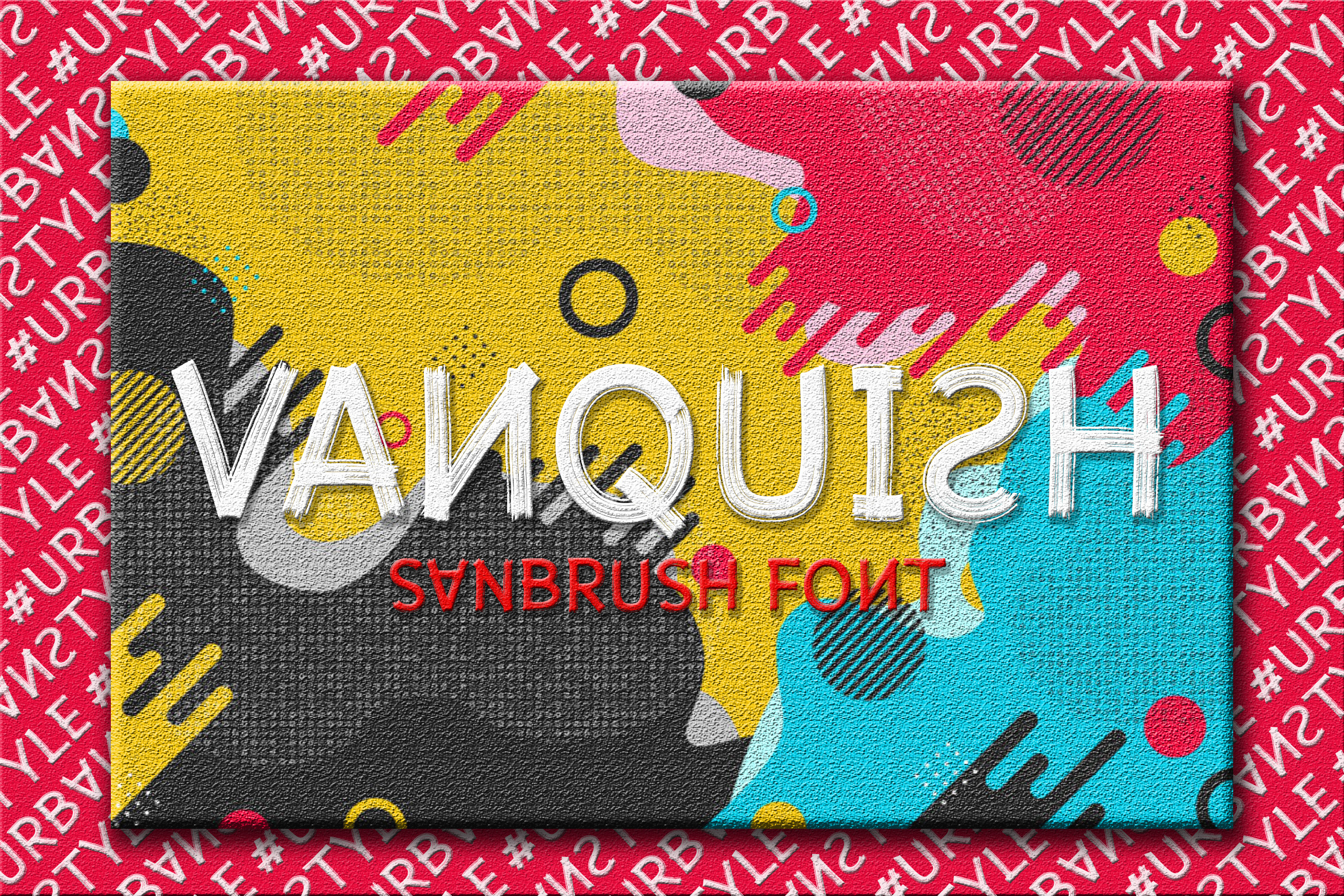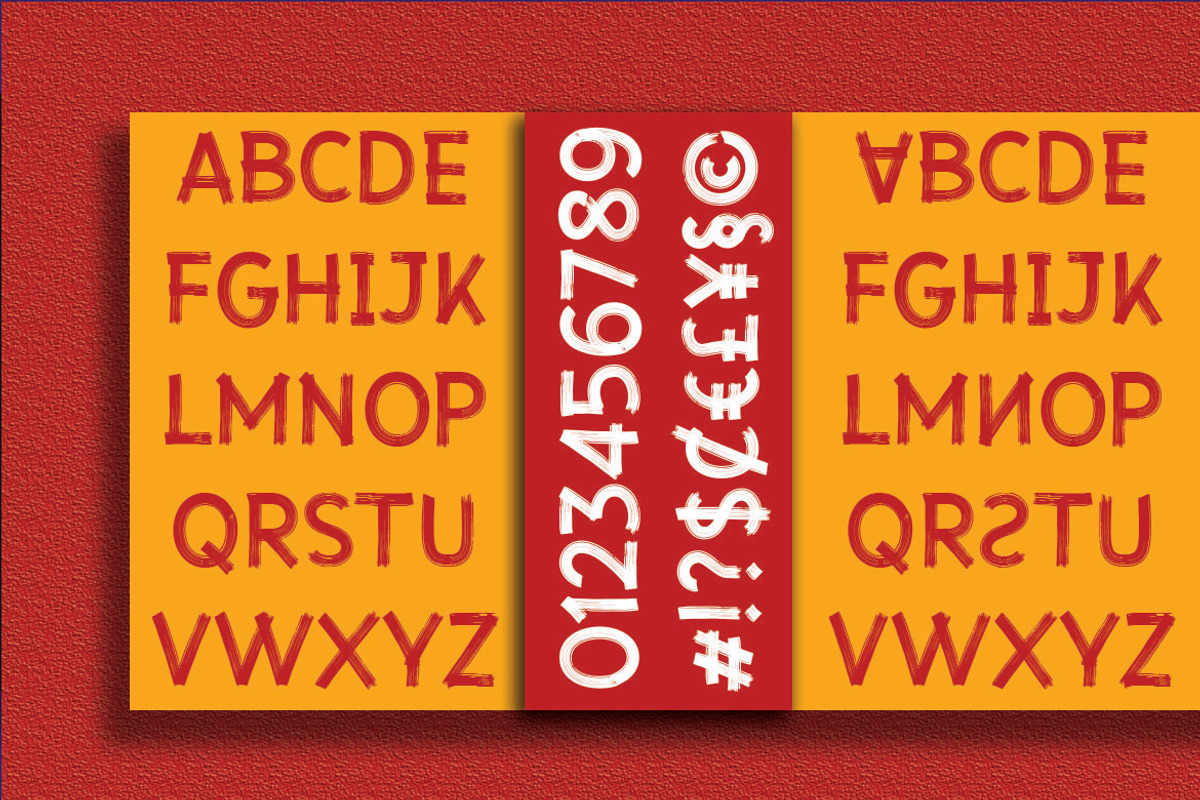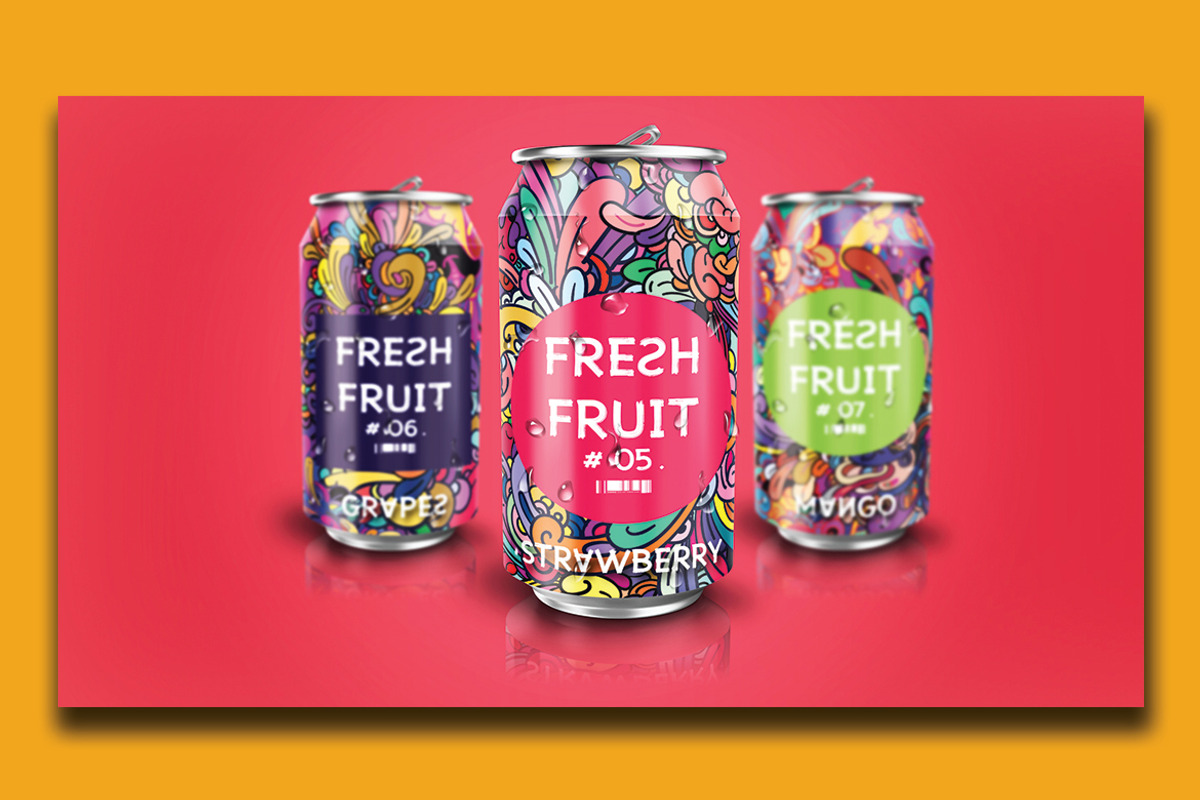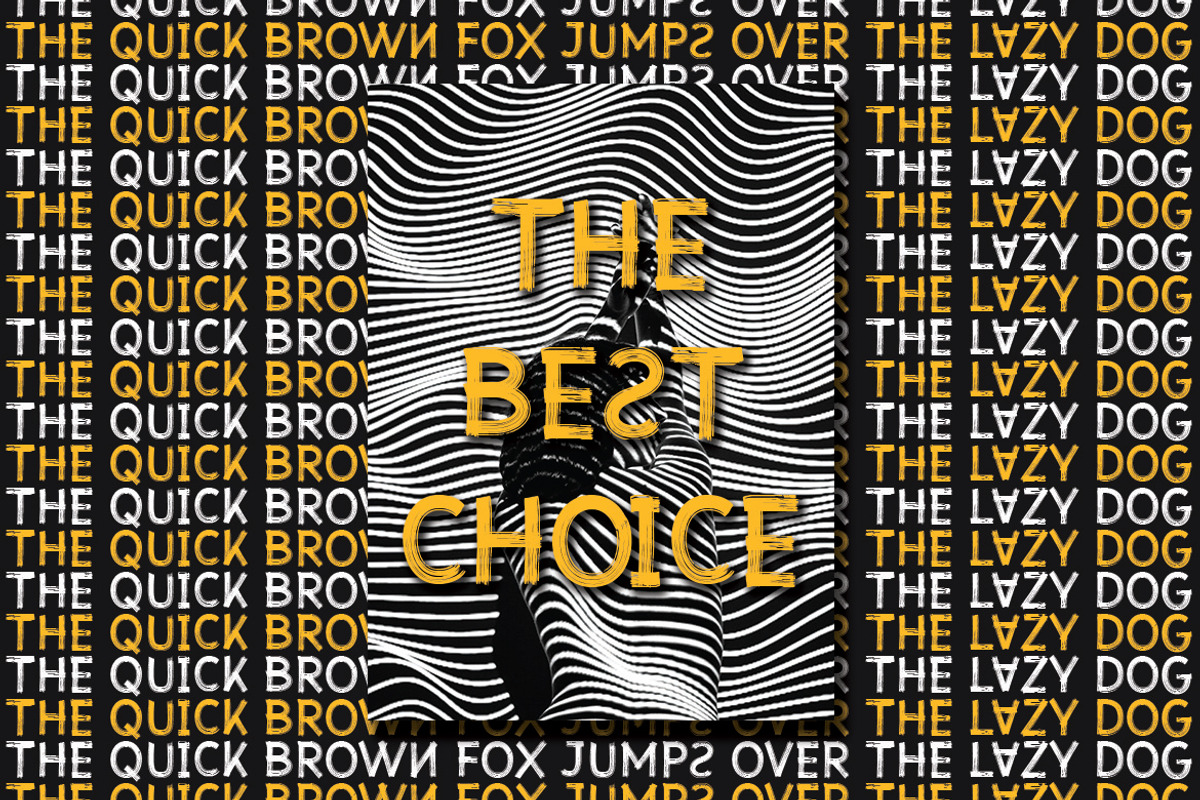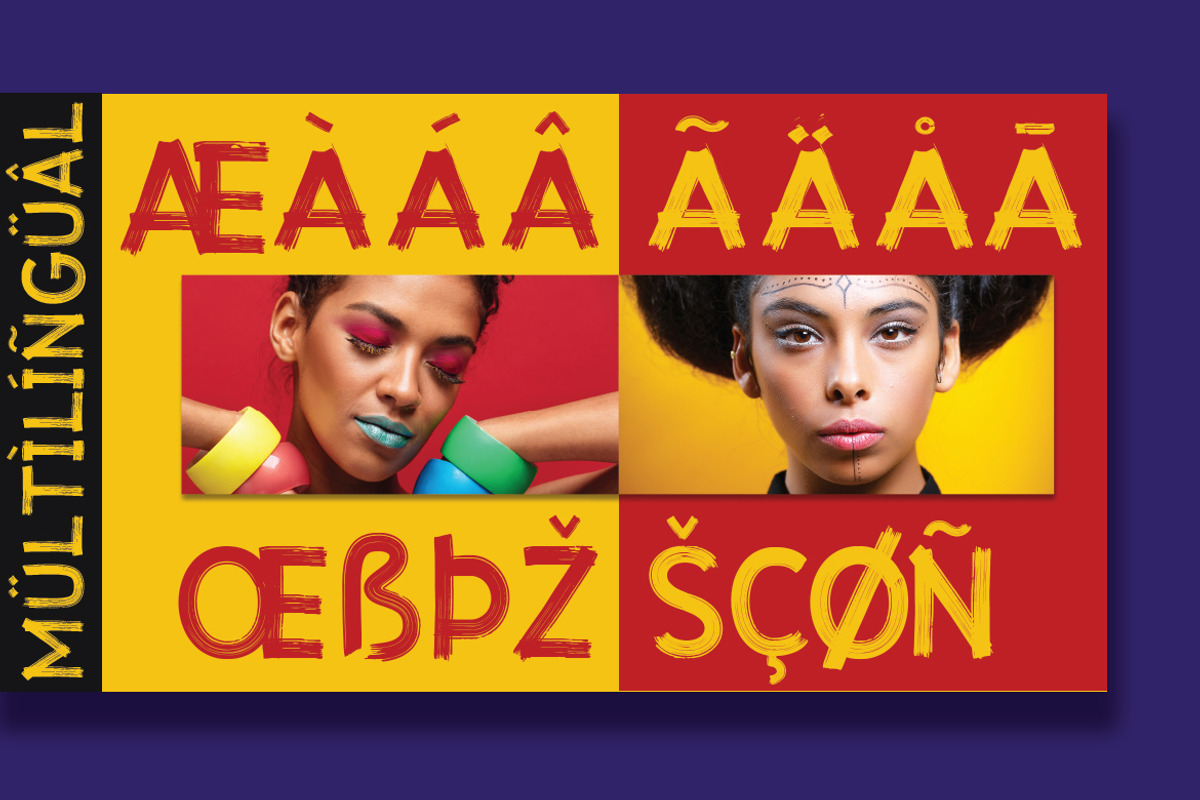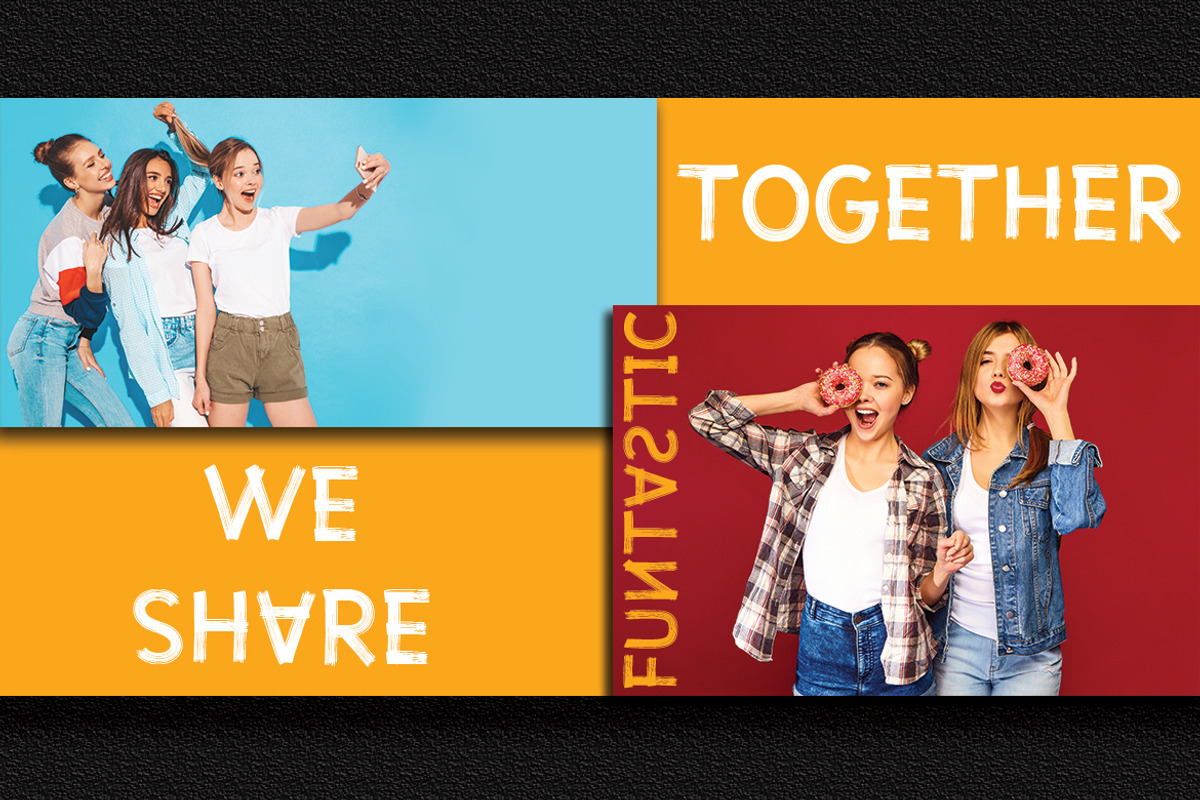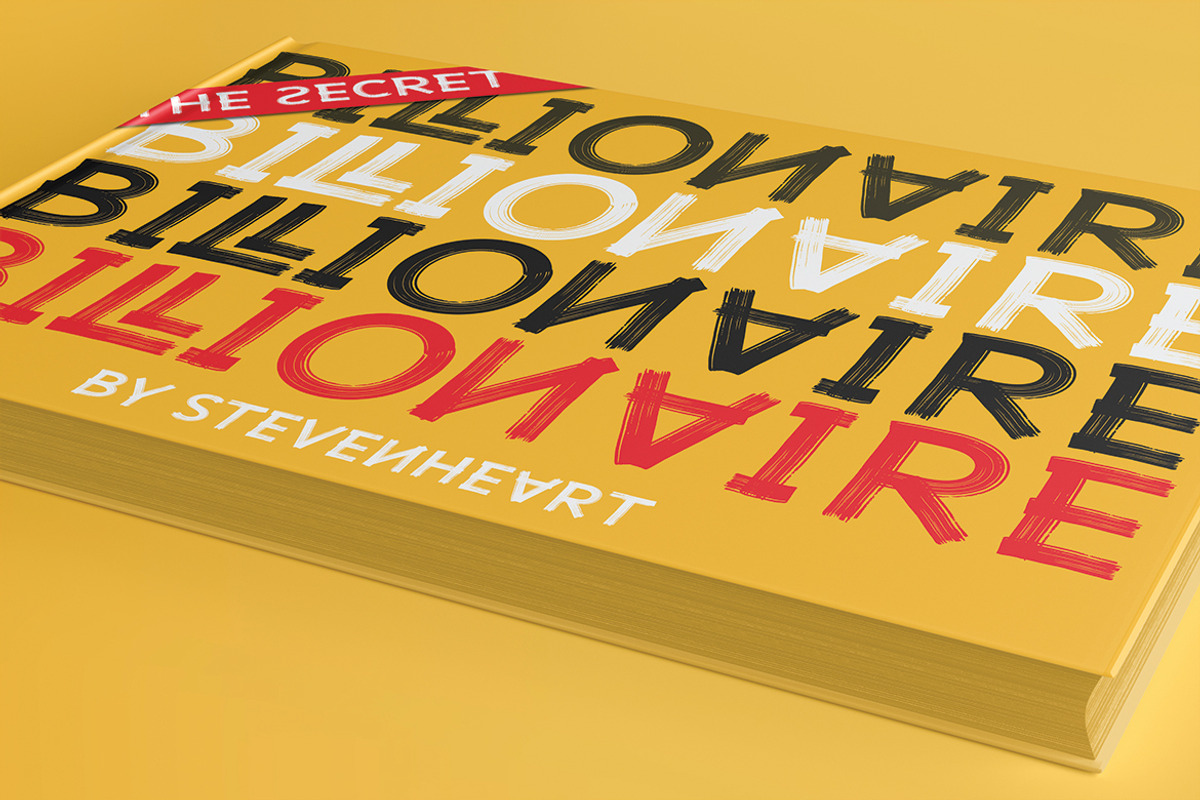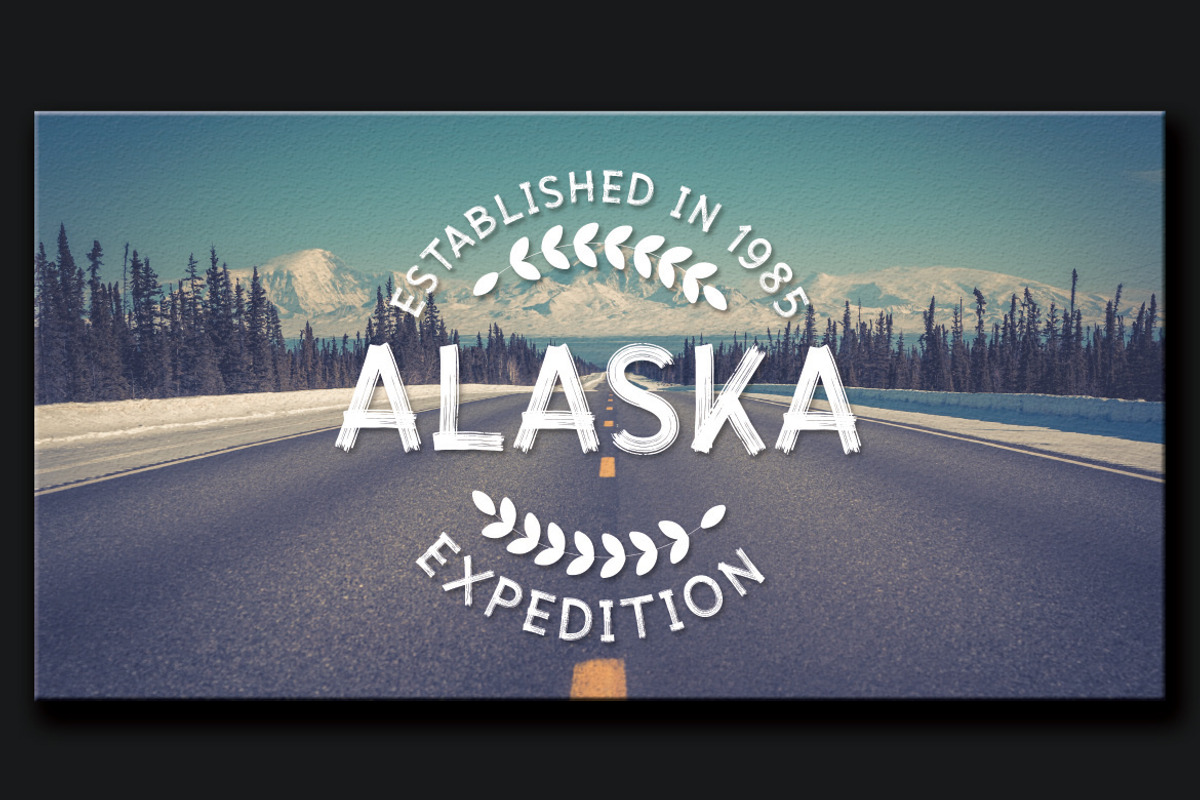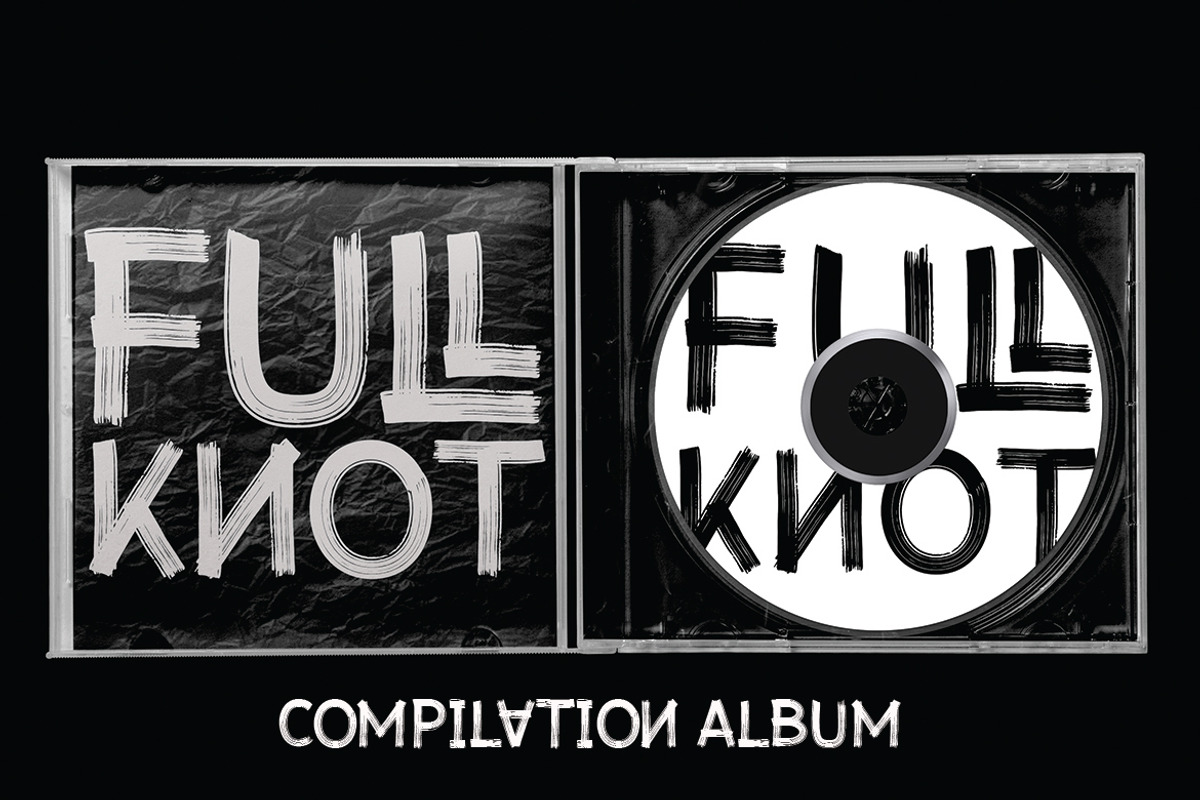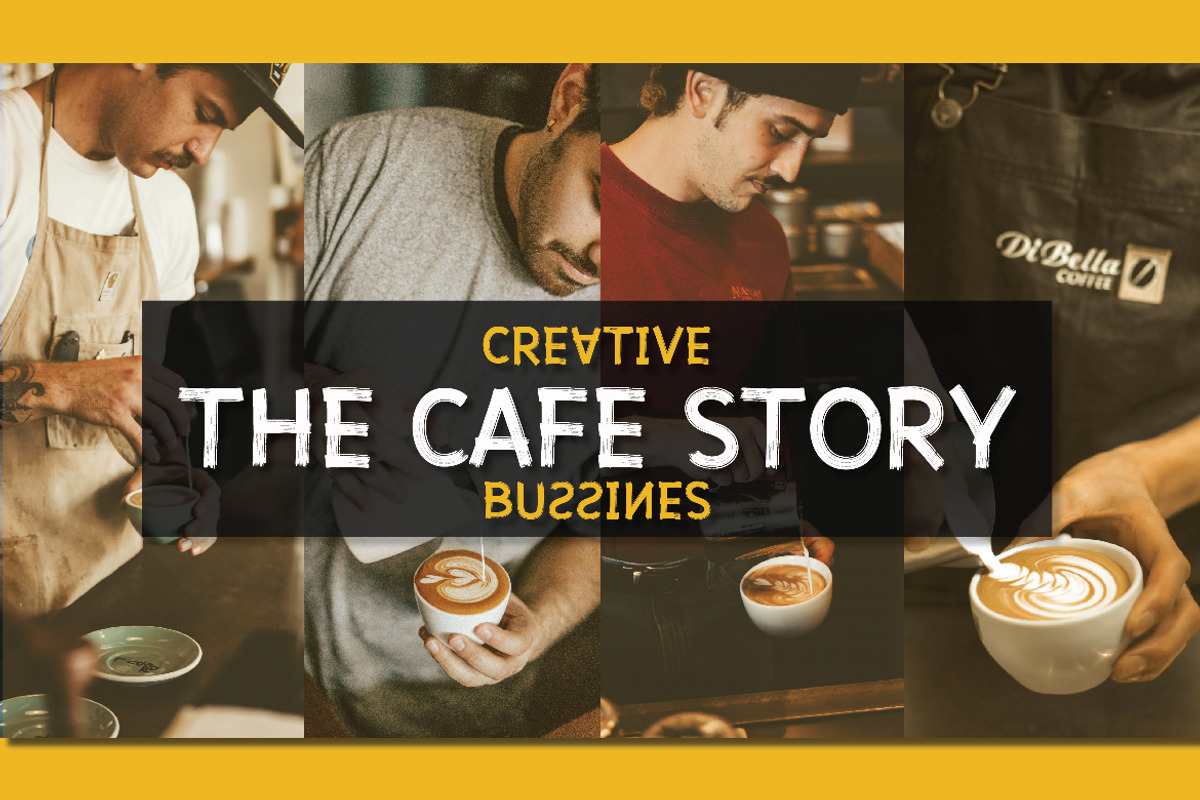
Vanquish | Brush Font
Vanquish is a hand-painted san serif brush font, comes with 2 versions, regular and italic.This is Al Caps font with ligatures,Very good for branding , tshirt, packaging, poster, magazine, cover book,crafting, etc.